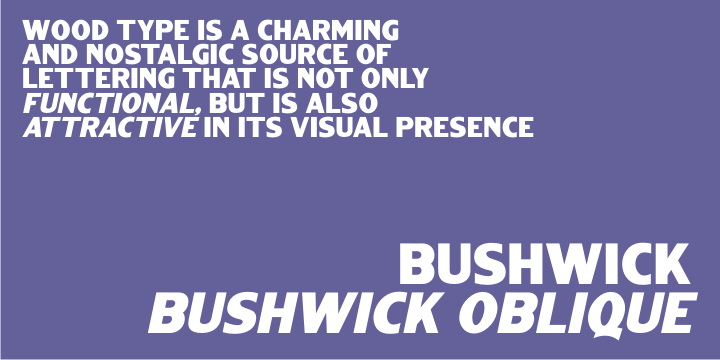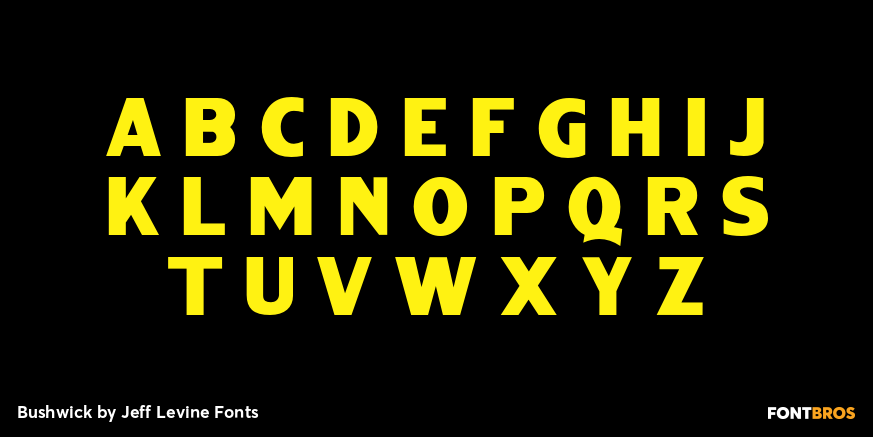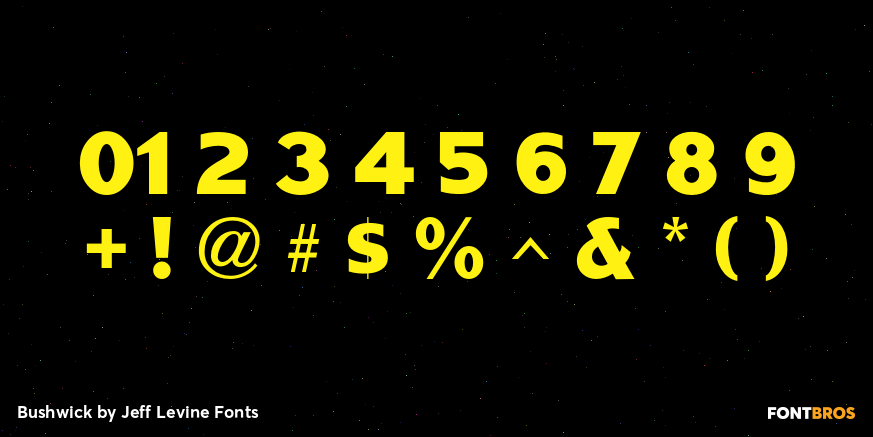
Bushwick
Bushwick JNL and Bushwick Oblique JNL are modeled from a wood type sanserif that has a strong resemblance to Franklin Gothic, yet keeps its own distinct personality.